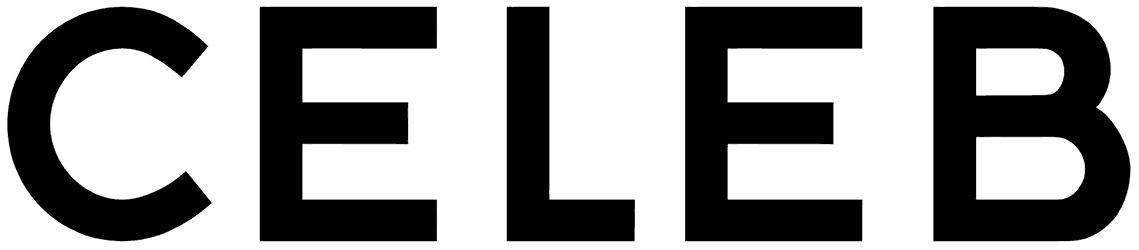
Celeb Font
Celeb is a sharp and natural sans serif font that looks exactly like someone who has kept a simple and minimal approach to maintaining visual appeal amidst creative inspiration. This basic font can easily convey your ide…
Celeb is a sharp and natural sans serif font that looks exactly like someone who has kept a simple and minimal approach to maintaining visual appeal amidst creative inspiration.
This basic font can easily convey your ideas in simple text and give you enough confidence to step into the design world. Celeb is a contemporary eye-catcher for your products, posters, or personal branding that doesn’t need lowercase letters to shine.